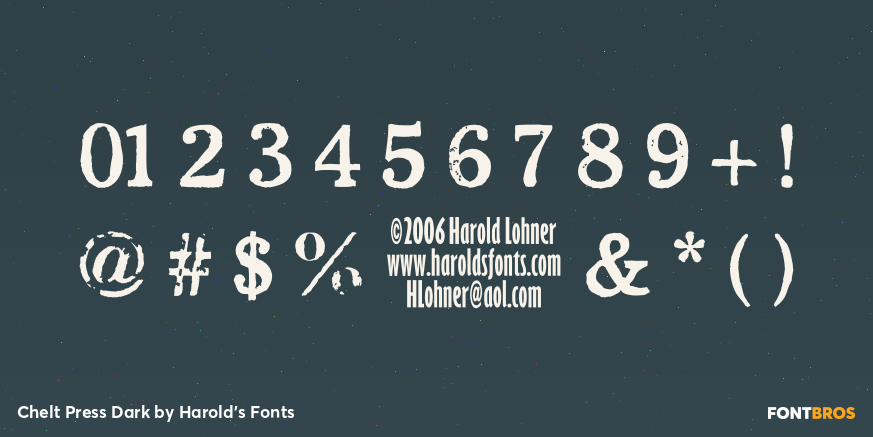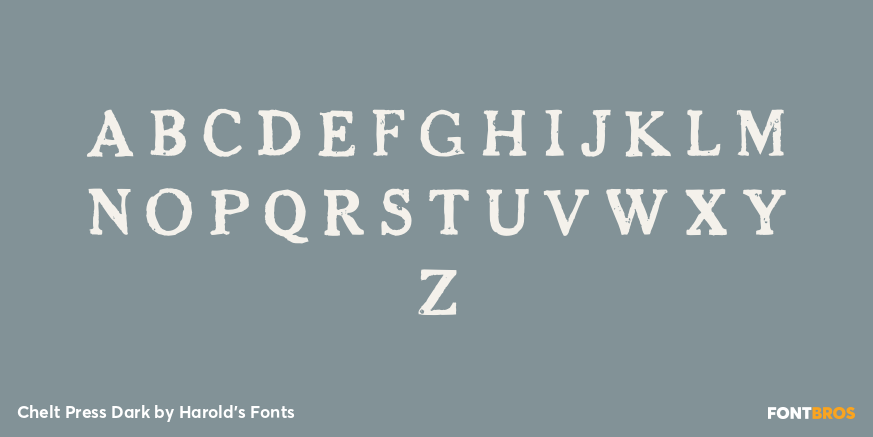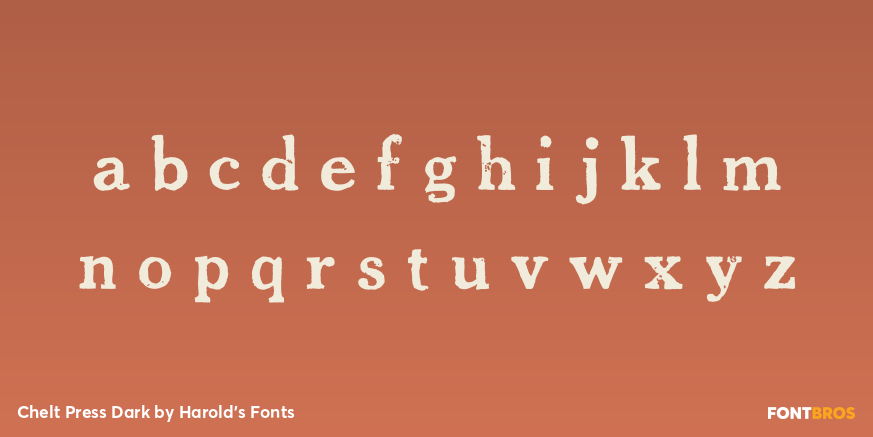
Chelt Press Dark
Font Family by Harold's Fonts
Chelt Press was based on scans of my own hand-carved rubber stamps, carved way back in the 70s to simulate Morris Fuller Benton's classic Cheltenham Bold. Looks just like stamping but also suggests crude letterpress. Four fonts in all: light and dark, aligned and variegated. Mix and match for a totally random, hand-printed look.